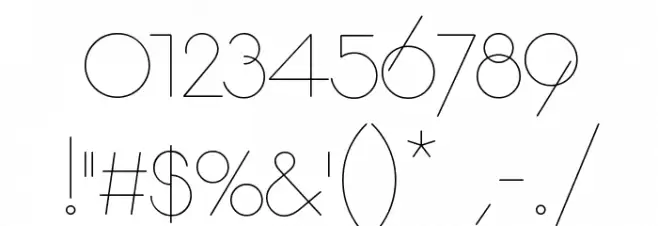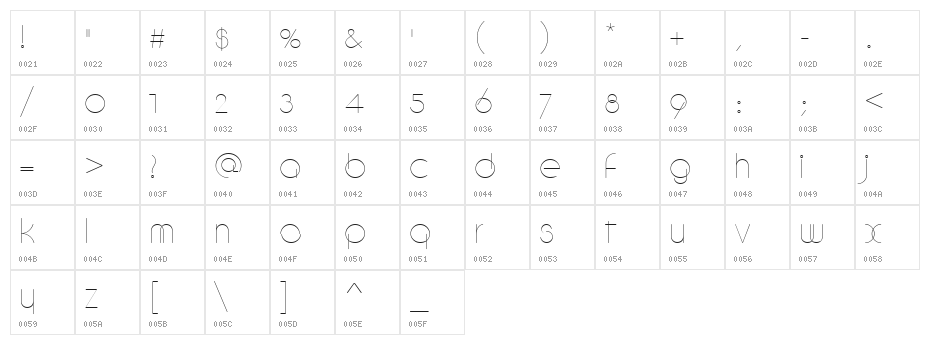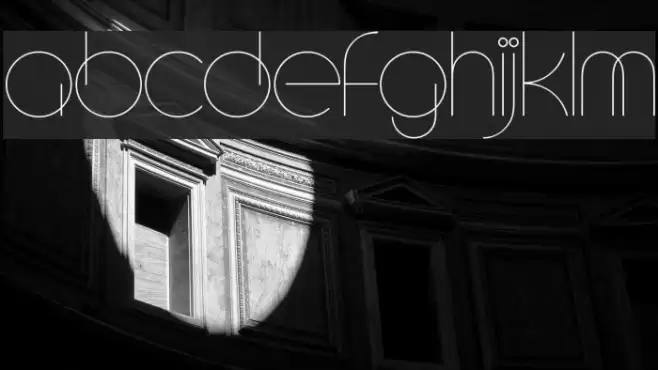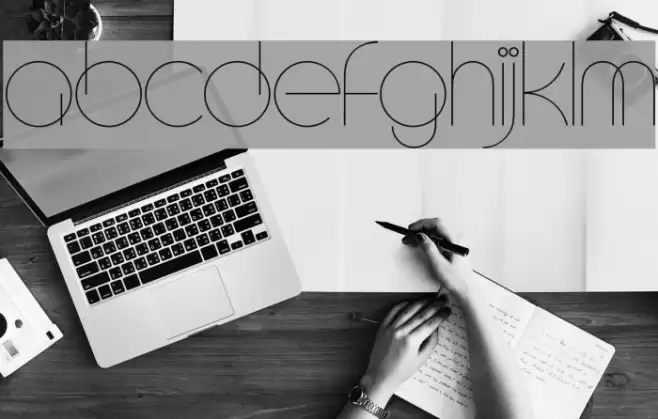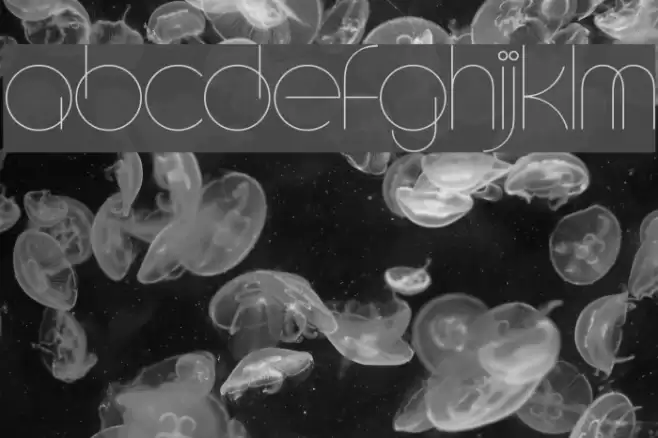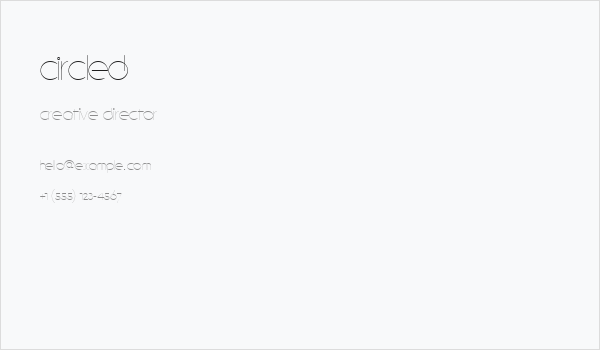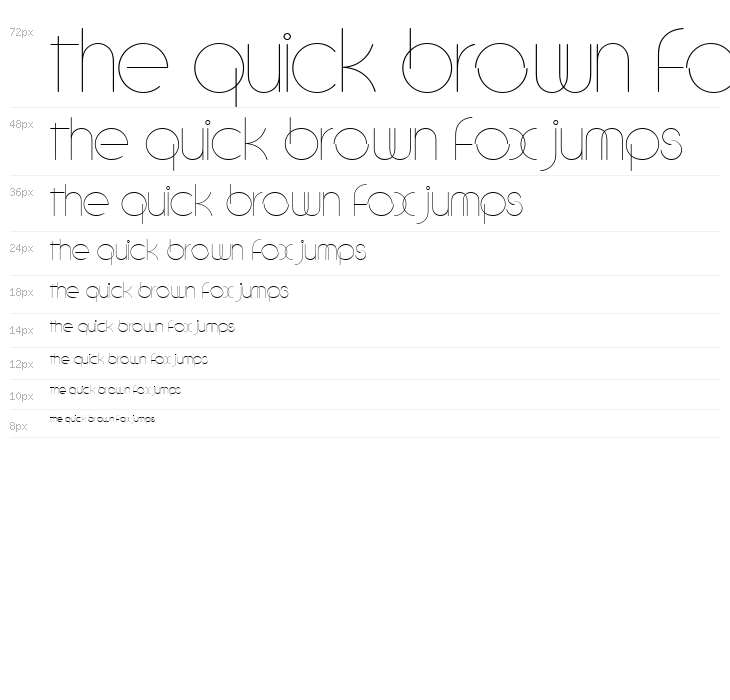
CircleD Font
CircleD Description
This font features a modern and minimalist design with thin, clean lines and a geometric structure. The characters are composed of circular and linear elements, creating a sense of balance and harmony. The uppercase and lowercase letters maintain a consistent style, with a focus on simplicity and elegance. The numerals and special characters follow the same design principles, ensuring a cohesive look across all elements. This font is ideal for projects that require a contemporary and sophisticated aesthetic.
| Proposed Projects | Ideal for branding, logos, modern web design, and minimalist posters. |